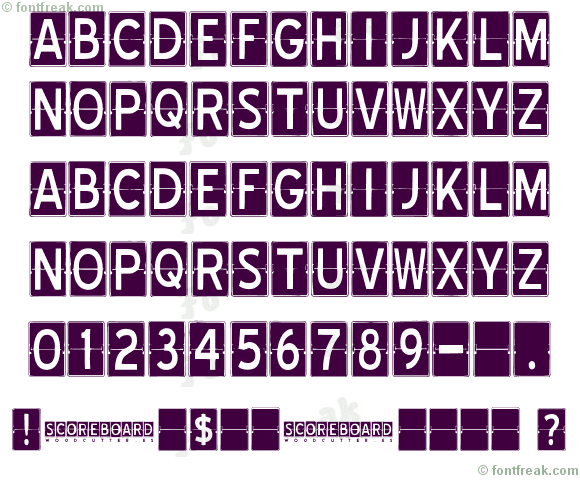
SCOREBOARD
About SCOREBOARD
SCOREBOARD by woodcutter Manero is a striking display typeface that captures attention with its unique visual style. This font is characterized by its bold stroke weight and a high-contrast design that evokes the aesthetics of vintage scoreboards. The letterforms are well-spaced, ensuring readability while maintaining a sense of dynamic energy, making it perfect for various design contexts. Decorative elements, such as rounded corners and geometric shapes, give SCOREBOARD a playful yet professional appearance, making it suitable for both formal and informal applications.
The versatility of the SCOREBOARD font makes it an excellent choice for a range of use cases. It shines in sports-related designs, such as team jerseys, event flyers, and promotional materials. Additionally, its bold presence makes it ideal for movie posters, where it can effectively capture the essence of action and excitement. Restaurant menus can also benefit from its eye-catching nature, drawing customers in with a fun and inviting aesthetic. Moreover, graphic designers can utilize SCOREBOARD in branding projects, ensuring that logos and advertisements stand out in a crowded market.
What sets SCOREBOARD apart is its ability to convey energy and enthusiasm while remaining legible and versatile. This font stands out not only for its aesthetic qualities but also for its adaptability across different mediums and applications. With SCOREBOARD font free download available, it’s an excellent addition to any designer's toolkit, enhancing visual storytelling with its distinctive character.